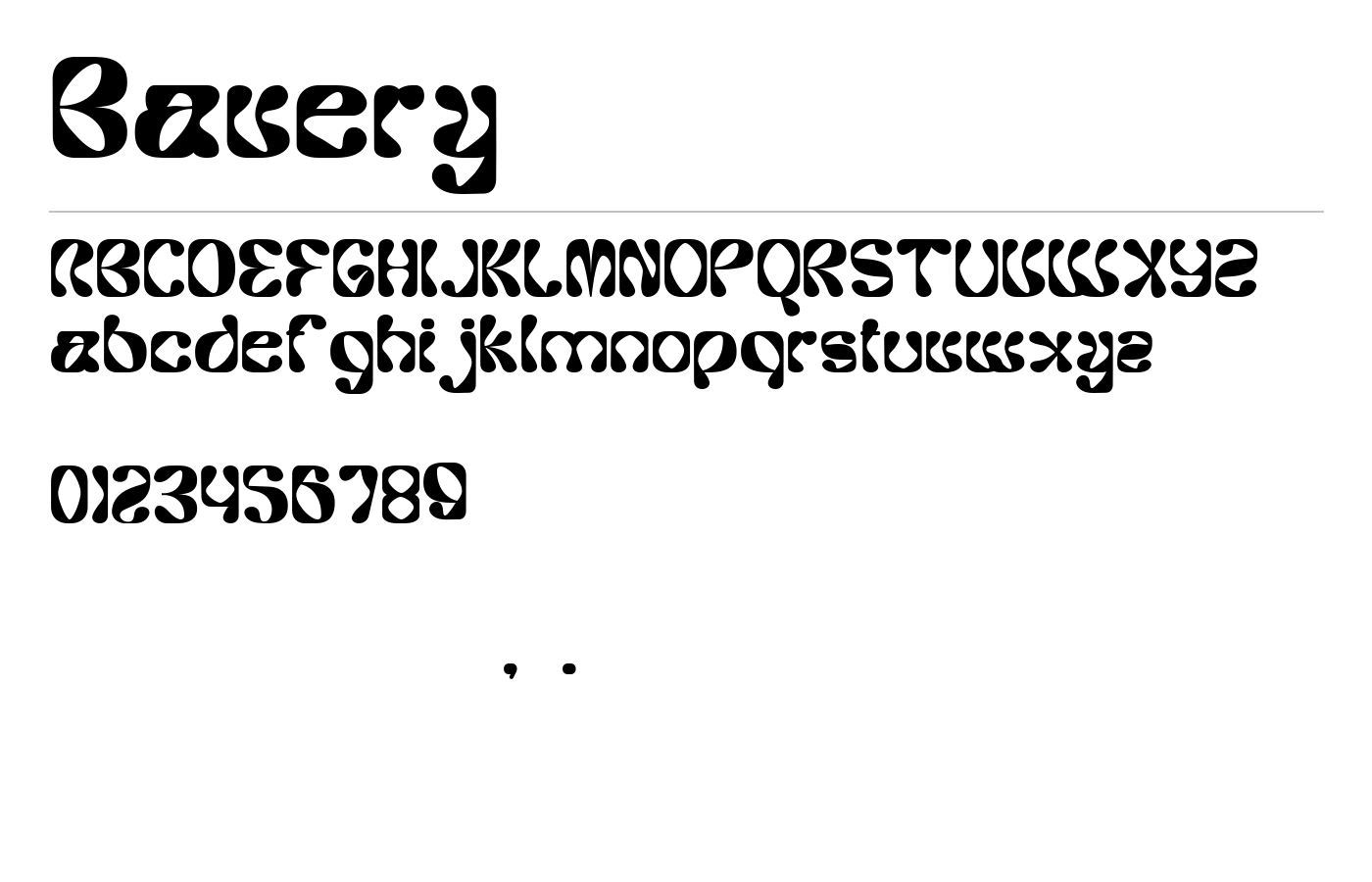
Bavery is a bold, playful display font with a unique blend of geometric shapes and soft, rounded edges that give it a retro yet modern flair. Its distinctive character forms and high contrast strokes make it ideal for eye-catching headlines, logos, and creative branding where a fun and original style is desired. This font works especially well in projects aiming for a quirky, artistic vibe with strong visual impact.
Bavery Font
About Bavery Font